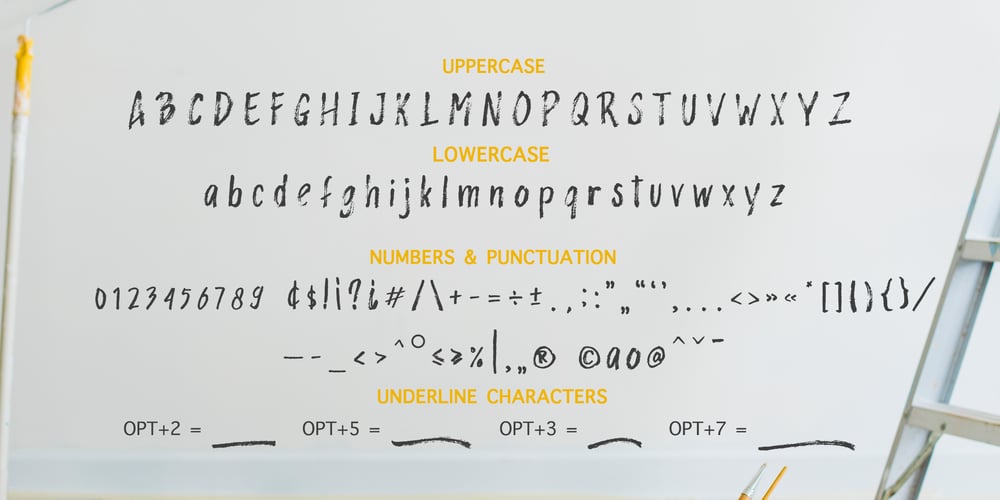
Rashford Font Family was designed by Yean Aguste and published by HandletterYean. Rashford contains 2 styles and family package options. Rashford is a brush font that fulfils all your needs, made with a brush pen with a real brush tip that gives result of a rough and distorted font. It contains uppercase, lowercase, punctuation and symbols. Rashford is suitable for posters, graphics designs, quotes, greeting cards, invitation cards, logos, packaging, branding, magazines, titles, advertising, business cards, signs, greeting cards, flyers, kids t-shirts, logos, and every other design which needs a rough look.